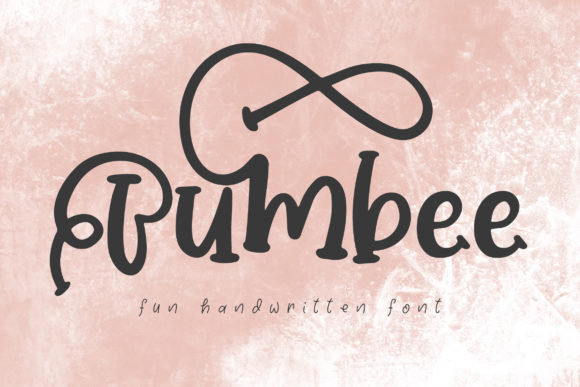
Bumbee Font: Elevate Your Designs with a Chic and Unique Display Font
In the world of typography, fonts play a crucial role in conveying messages, expressing emotions, and creating a lasting impression. When it comes to making a statement, a well-crafted display font can be the perfect choice. Introducing Bumbee Font, a chic, very detailed, and unique display font that is sure to take your designs to the next level.
The Distinctive Features of Bumbee Font
Bumbee Font is an imposing font that boasts uniquely shaped letters, making it stand out from the crowd. Its distinctive features include intricate details, elegant lines, and a sophisticated style that exudes luxury and refinement. This font is perfect for designers who want to add a touch of glamour and sophistication to their creations.
Key Features of Bumbee Font:
- Unique Letterforms: Bumbee Font features uniquely shaped letters that are sure to grab attention.
- Intricate Details: The font boasts intricate details that add an extra layer of sophistication.
- Elegant Lines: The elegant lines and curves of Bumbee Font create a sense of luxury and refinement.
- Versatile: This font can be used for a wide range of designs, from logos and branding to posters and packaging.
The Benefits of Using Bumbee Font
So, why choose Bumbee Font for your designs? Here are just a few benefits of using this exceptional display font:
Benefits of Bumbee Font:
- Makes a Statement: Bumbee Font is sure to grab attention and make a lasting impression.
- Adds Sophistication: The font’s elegant lines and intricate details add a touch of luxury and refinement to any design.
- Versatile: Bumbee Font can be used for a wide range of designs, from elegant logos to bold posters.
- Easy to Read: Despite its intricate details, Bumbee Font is easy to read, making it perfect for use in a variety of contexts.
How to Use Bumbee Font in Your Designs
So, how can you use Bumbee Font in your designs? Here are a few ideas to get you started:
Design Ideas Using Bumbee Font:
- Logos and Branding: Use Bumbee Font to create a sophisticated and elegant logo that reflects your brand’s values.
- Posters and Flyers: Add a touch of glamour to your posters and flyers with Bumbee Font.
- Packaging: Use Bumbee Font to create eye-catching packaging that stands out on store shelves.
- Web Design: Add a touch of sophistication to your website with Bumbee Font, perfect for use in headers and titles.
Tips for Getting the Most Out of Bumbee Font
To get the most out of Bumbee Font, here are a few tips to keep in mind:
Tips for Using Bumbee Font:
- Use it Sparingly: Bumbee Font is a statement font, so use it sparingly to avoid overwhelming your design.
- Experiment with Colors: Try out different colors and textures to add an extra layer of depth to your design.
- Pair it with Other Fonts: Bumbee Font works well with other fonts, so don’t be afraid to experiment with different pairings.
- Pay Attention to Size: Make sure to adjust the size of Bumbee Font to fit your design, as it can be overwhelming if it’s too large.
In conclusion, Bumbee Font is a chic, very detailed, and unique display font that is sure to elevate your designs. With its distinctive features, elegant lines, and sophisticated style, this font is perfect for designers who want to add a touch of luxury and refinement to their creations. Whether you’re creating a logo, poster, or packaging, Bumbee Font is sure to make a lasting impression.